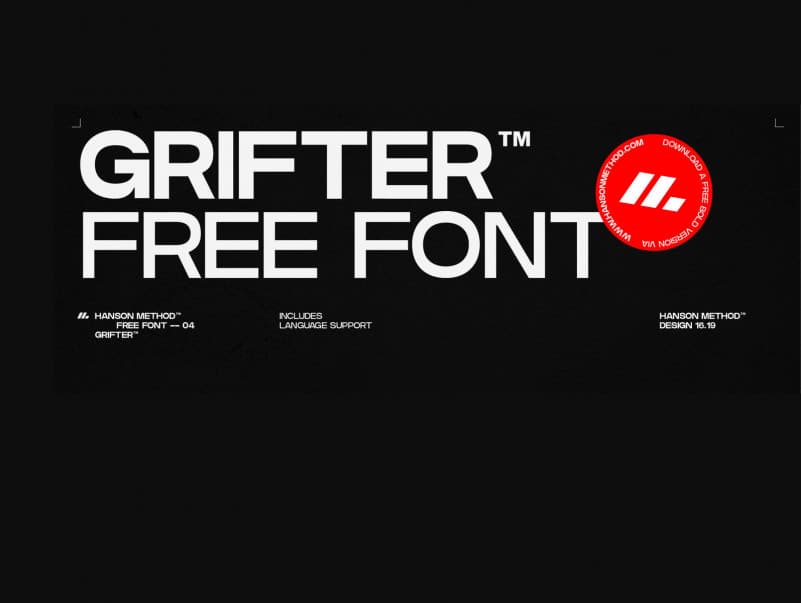
Grifter Sans Serif Font
Grifter Sans Serif Font is a condensed typeface font. This is an elegant sans serif font family. This font is perfect for anyone who like strong style. Grifter Sans Serif Font is a strong, assertive, and stylish typeface that can be used in a variety of designs.
This typeface includes; uppercase, lowercase, numerals, symbols, and is multilingual. The newest addition to the HMD™ font collection. This font is free for PERSONAL USE.